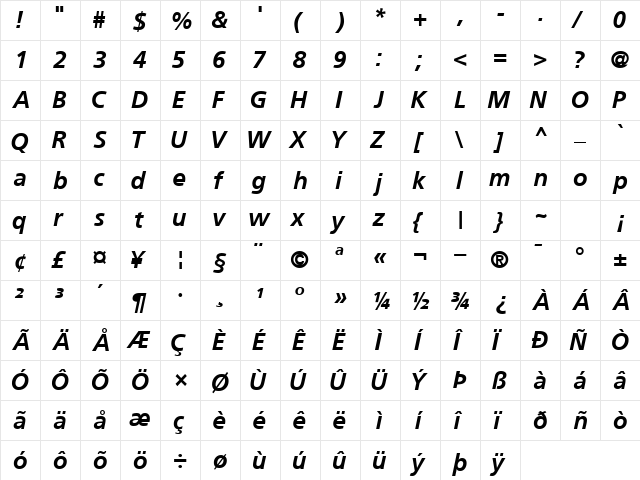
PalmaSSK BoldItalic Font Preview
Design Context for PalmaSSK Typeface
PalmaSSK takes a measured approach to typography — its balanced proportions and neutral character make it a reliable workhorse for both digital and print work. Its italic angle brings a sense of urgency and motion to the letterforms. The heavy weight commands attention and anchors typographic hierarchies.
Pro Tip: Try PalmaSSK for annotation and caption copy alongside an upright companion — the contrast in angle creates a dynamic but ordered typographic system.